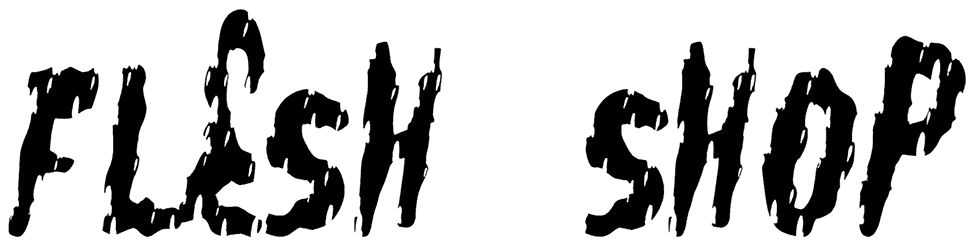
Flesh Shop Font
This all-caps zombie font comes with a wavy and crooked style, thus it can lead to a vibe of momentum, grunge, fear, or spookiness. This masterpiece really deserves to be one of your main preferences for creating magazines, flyers, stickers, and the user interface of applications.